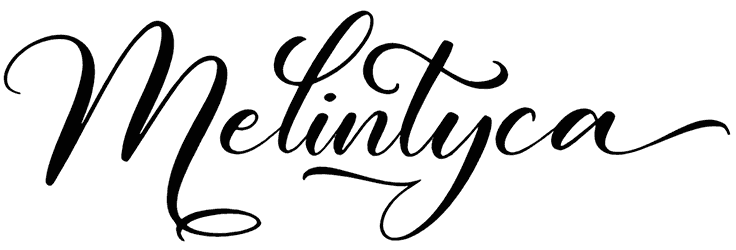
Melintyca Font
If you are looking for a stylish dream font, the Melintyca is an appropriate choice. Due to the elegant design of this script font’s letters, you will never forget its pleasant vibe.
The Melintyca font is offered in two versions and may be applicable for various cases, such as magazine covers, postcards, and flyers. Moreover, this font’s letters have a luxury style with thin tails, making it enjoyable to the viewers. So, try this well-designed font and impress your audience.